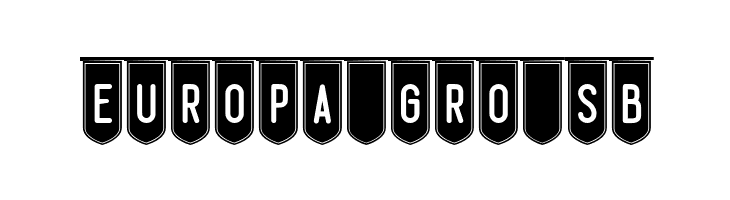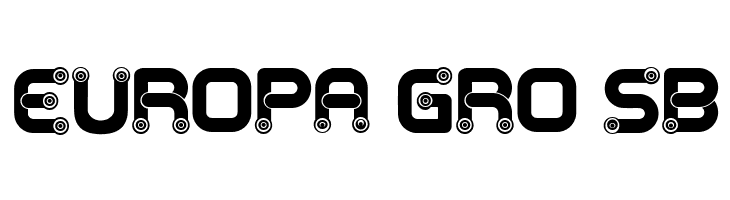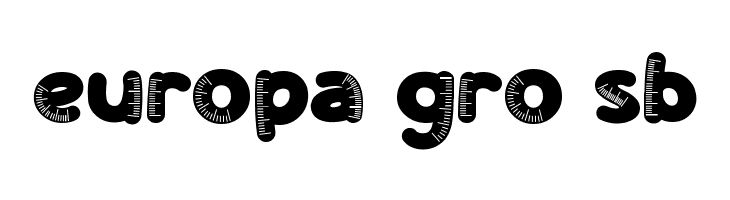
( Fonts by Xerographer Fonts )
A bold, decorative font with a playful striped pattern.
( Fonts by PutraCetol Studio )
A playful, bold font with rounded, bubbly characters.
( Fonts by PutraCetol Studio )
A bold, sporty font with integrated ball motifs for a playful and energetic look.
( Fonts by PutraCetol Studio )
A bold, playful font with book-themed characters, perfect for educational and children's projects.
( Fonts by PutraCetol Studio )
A bold, rounded font with a playful dotted pattern, perfect for creative projects.
( Fonts by PutraCetol Studio )
A playful, bold font with leaf-like accents on each character, perfect for fun and creative projects.
( Fonts by PutraCetol Studio )
A bold, playful font with paper plane decorations, perfect for creative projects.
( Fonts by PutraCetol Studio )
A playful, ruler-themed font with bold, rounded letters and medium contrast.
( Fonts by Jeff Bensch )
A city skyline-inspired font with characters resembling building silhouettes.
( Fonts by La Matrice )
A playful, bold decorative font with unique patterned characters.
A bold, 3D italic font with a playful and dynamic style.
A playful, 3D outlined italic font with a modern and dynamic style.
A playful, rounded 3D outline font with smooth curves and consistent thickness.
A bold, 3D font with a playful and cartoon-like style.
A bold, 3D, rough, and italic font with a hand-drawn style.
A bold, 3D, hand-drawn font with a rough, playful style.
A bold, decorative font with a woven, textured pattern and a slight slant.
A bold, textured font with a woven, three-dimensional appearance.
( Fonts by Scratchones )
A bold, playful font with rounded, outlined characters.
( Fonts by Anis Syafiqah )
A decorative font inspired by the Roaring 20s, featuring intricate Art Deco designs.
( Fonts by Mans Greback - www.mawns.com )
An elegant script font with intricate swashes and decorative flourishes.
( Fonts by Vunira Design )
A playful, dessert-themed decorative font with bold, rounded characters.
( Fonts by Graphicxell )
A playful, bold font with dotted accents inside each character.
( Fonts by Scratchones )
A bold, decorative font with a dotted pattern and rounded characters.
( Fonts by madeDeduk )
Bold, modern font with characters enclosed in shield shapes.
( Fonts by Vunira Design )
A playful, dessert-themed decorative font with cupcake illustrations.
A bold, decorative font with swirling embellishments and geometric shapes.
A bold, decorative font with medieval-inspired detailing and textured patterns.
A bold serif font with a three-dimensional outlined style.